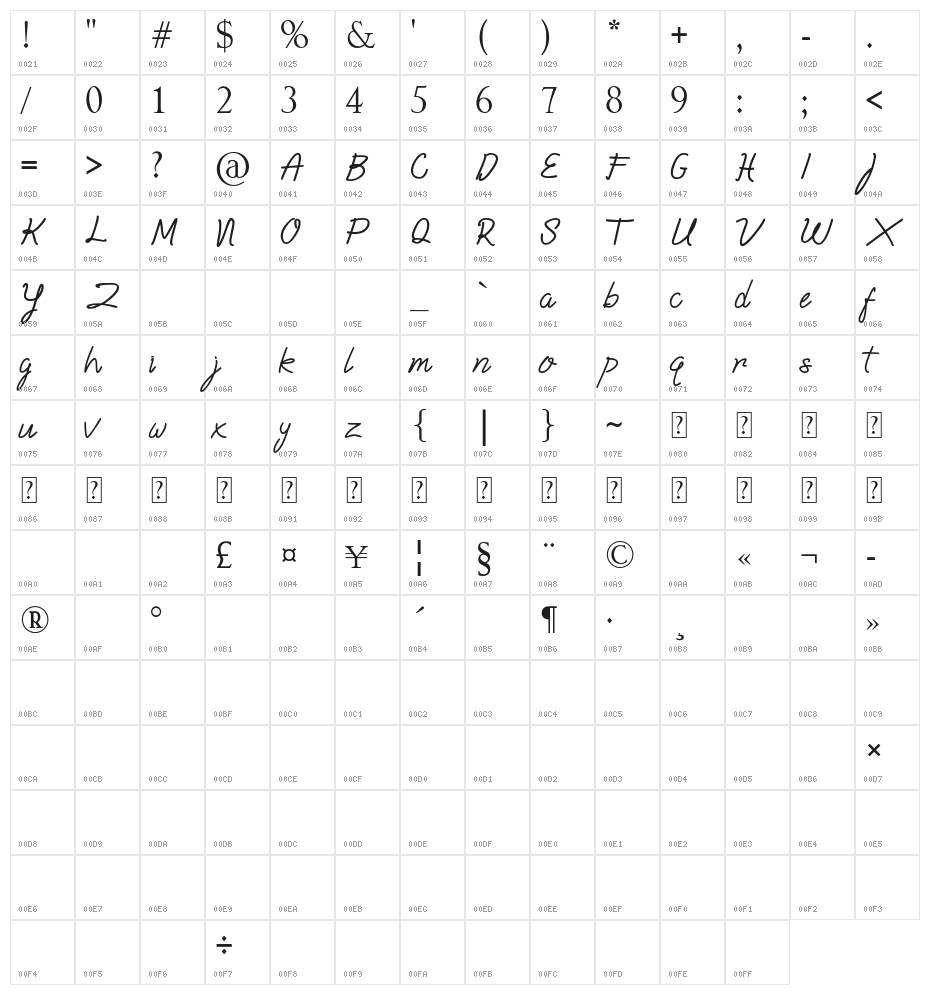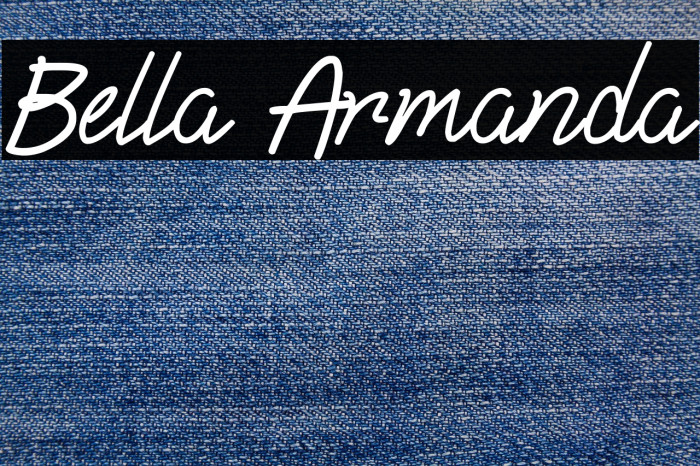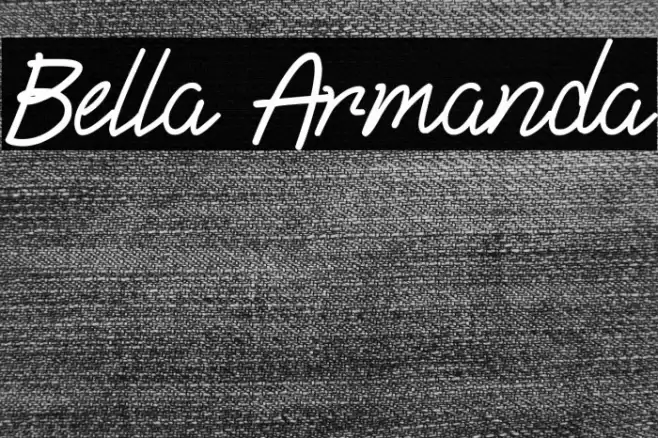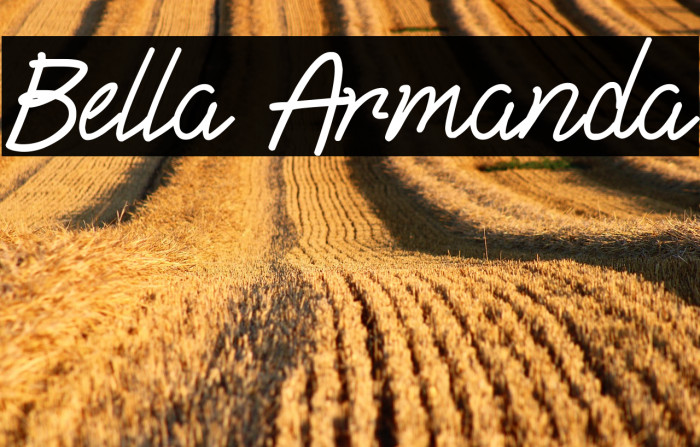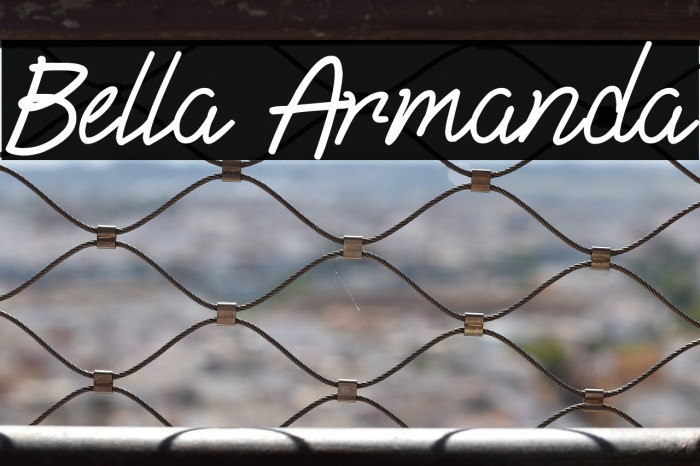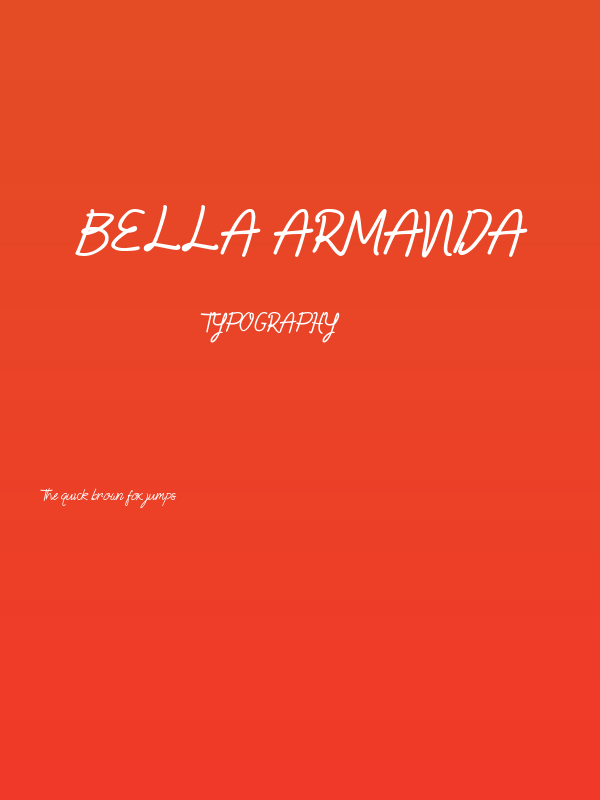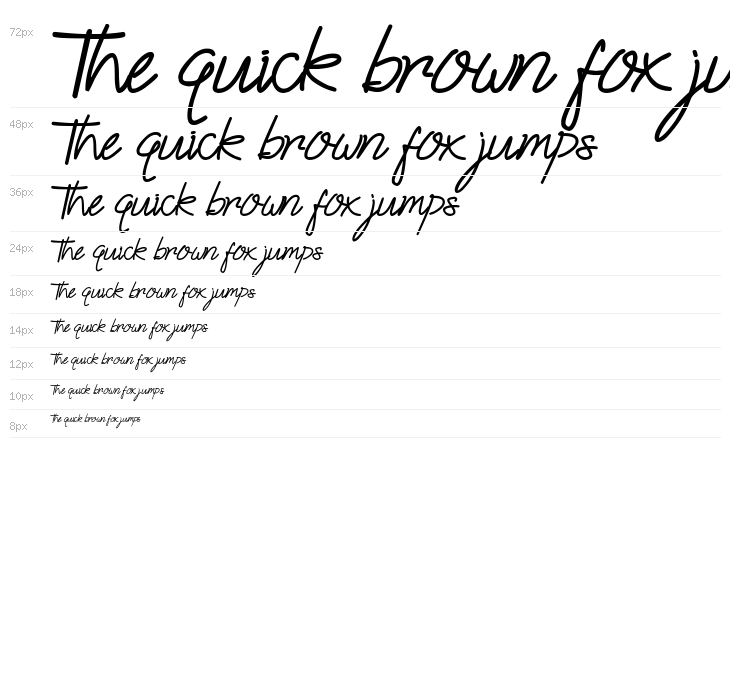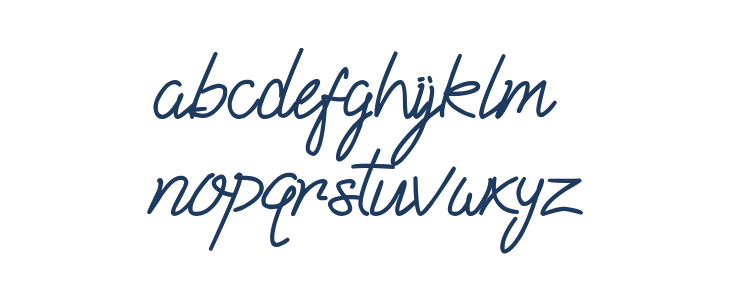
Bella Armanda Font
Bella Armanda Description
This font exhibits a lively and elegant script style, characterized by its fluid and connected letterforms. The uppercase letters are bold and slightly slanted, giving a sense of movement and grace. The lowercase letters maintain a consistent flow, with some characters featuring unique loops and swashes that add a touch of sophistication. The numerals are clear and distinct, complementing the overall cursive aesthetic. Special characters are well-integrated, maintaining the font's cohesive style. This font is ideal for projects that require a personal and artistic touch.
| Overall Style | Elegant, Artistic |